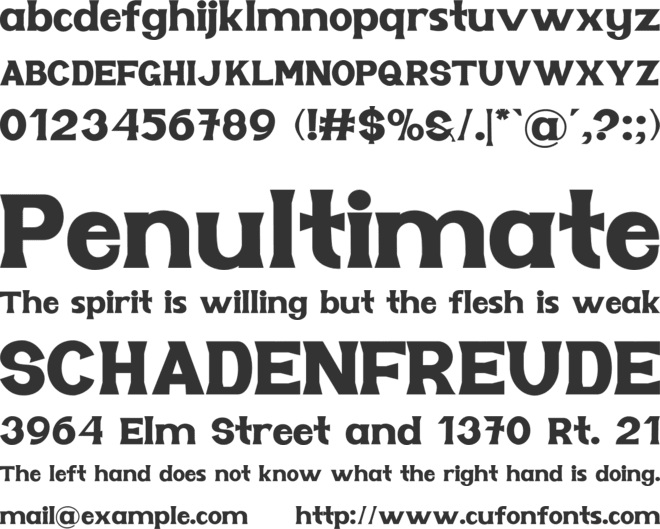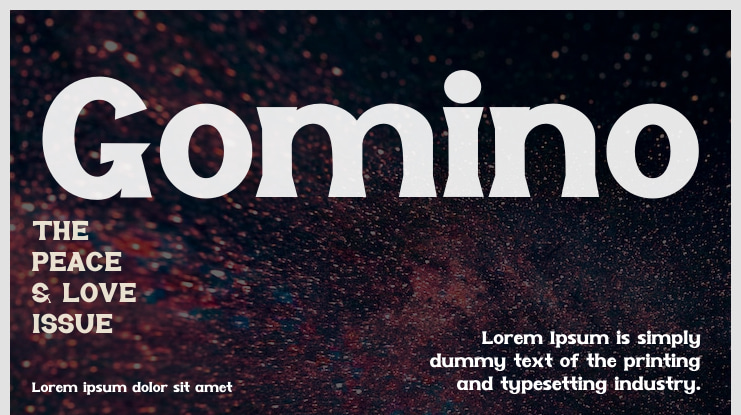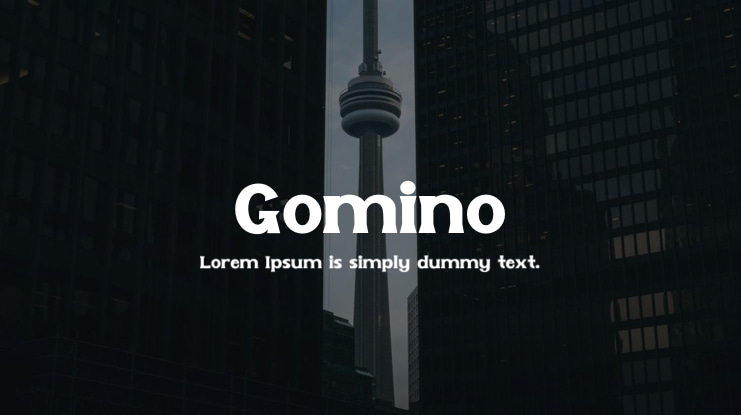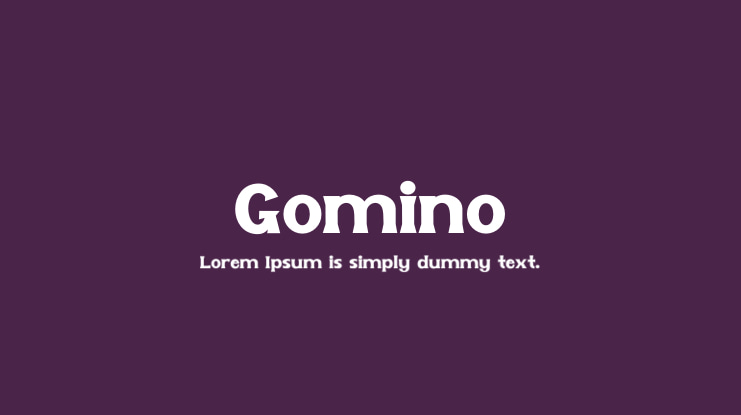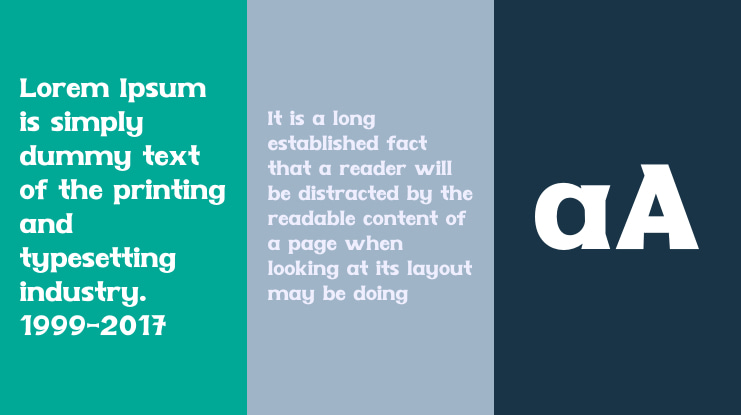
Gomino Font
Introducing "Gomino," a modern slab serif font that seamlessly blends strength and versatility, making it perfect for bold headlines and impactful displays. Defined by its thick, solid strokes and prominent serifs, Gomino exudes confidence and stability. Its clean lines and well-balanced proportions emit a professional aura, while its subtle playfulness fits both traditional and contemporary designs. The font's slight curves and even spacing enhance legibility, and its robust design ensures it stands out in branding, editorial, and advertising projects. Gomino is adaptable for both print and digital formats, offering a timeless, sophisticated touch to any project.